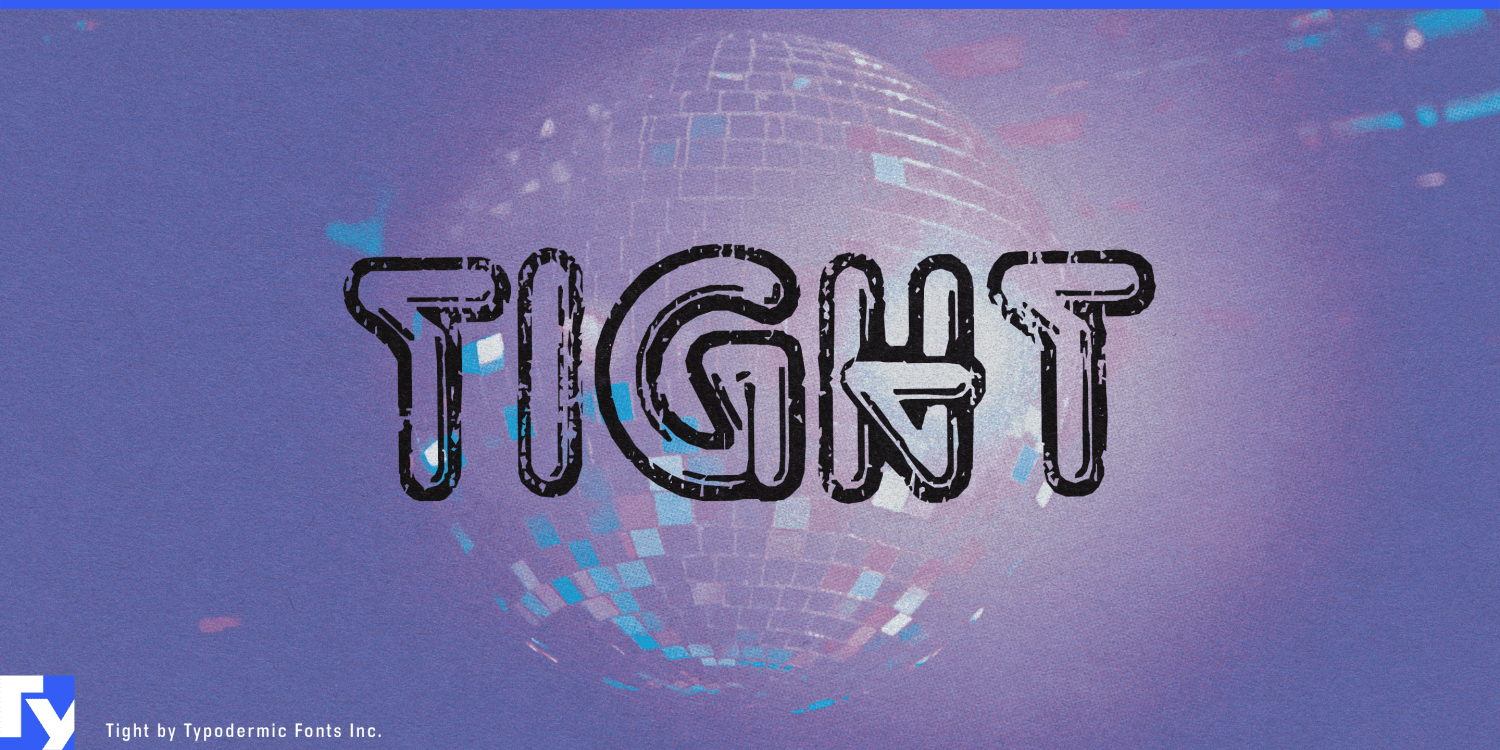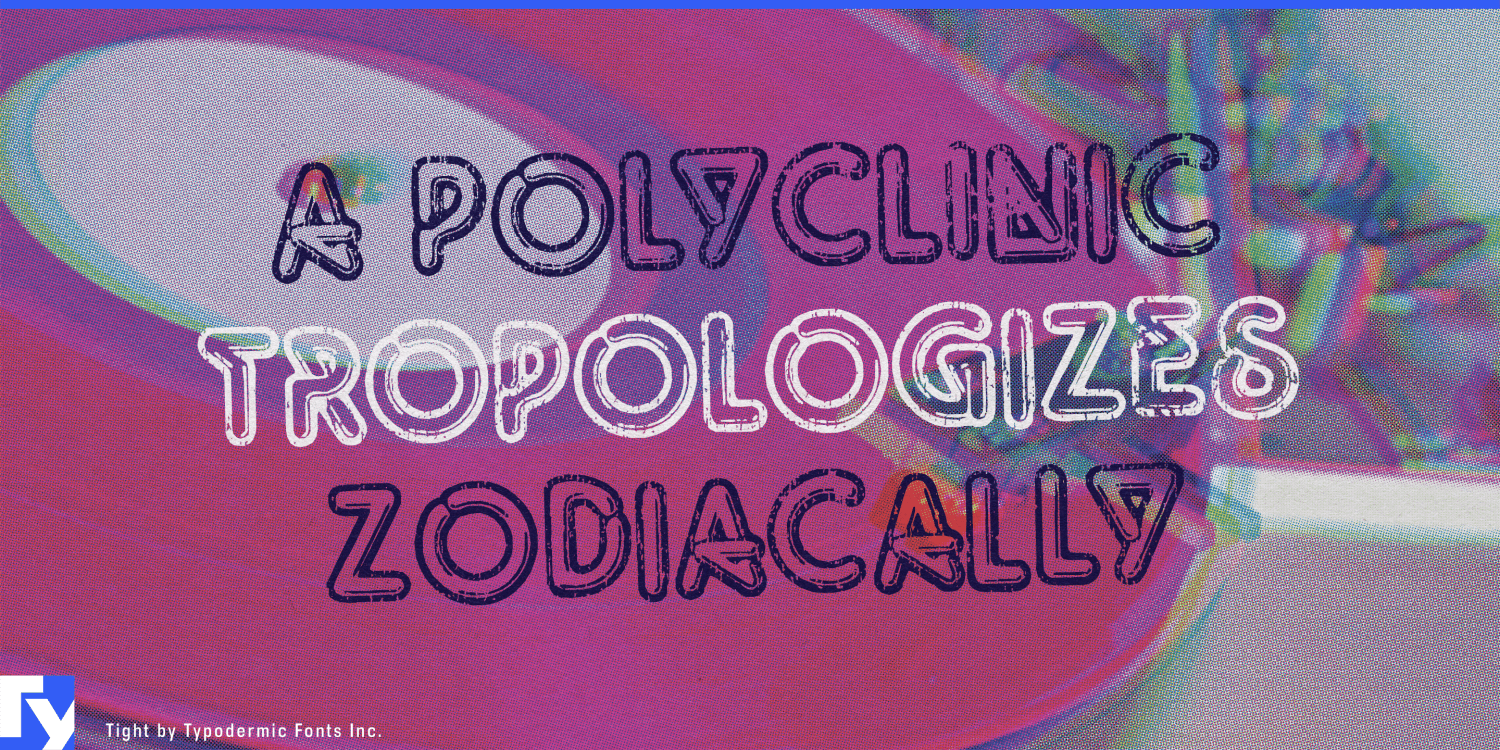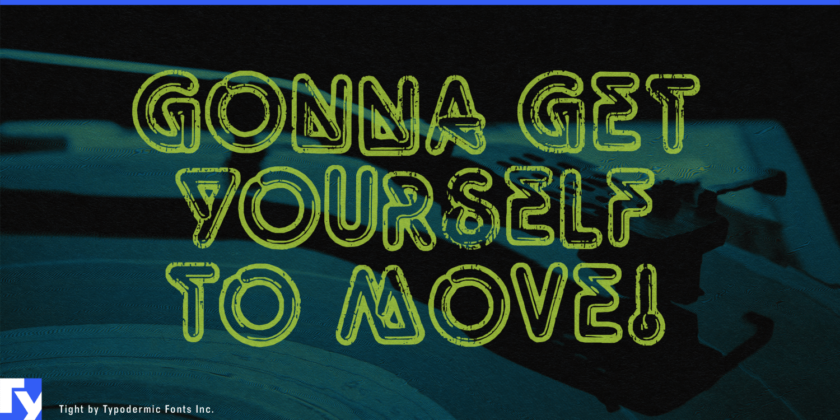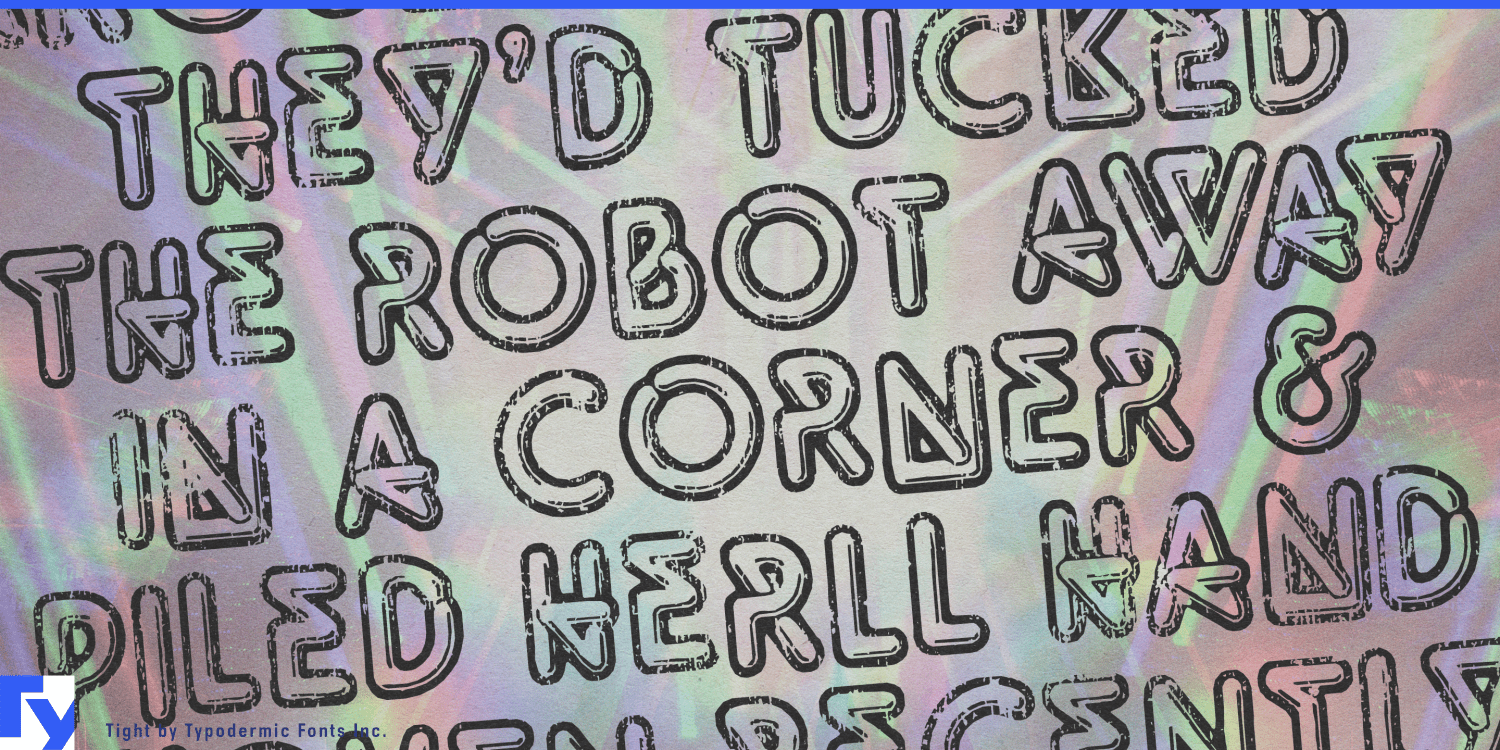
Tight
About Tight
Get ready to boogie down with Tight, the typeface that channels the groovy vibes of vintage tee shirt lettering. Inspired by the iconic disco era of the mid to late 1970s, Tight is the perfect way to celebrate those dancing days. Our retro disco t-shirt…